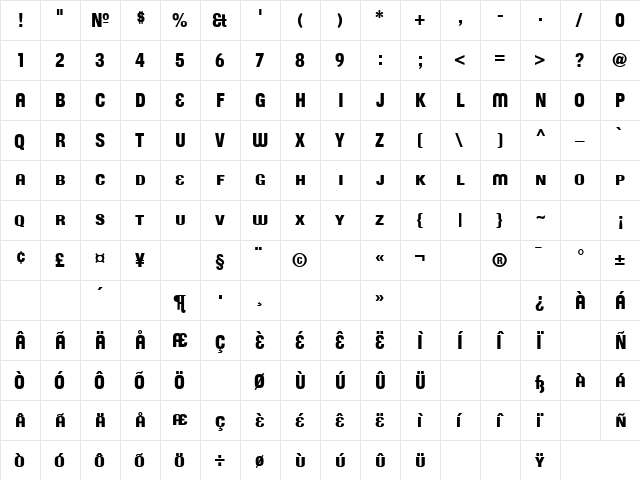
CorpusGothic AltSmallCaps
Design Context for CorpusGothic Typeface
CorpusGothic takes a clean, functional approach — its unadorned letterforms prioritise legibility and work reliably across screen and print environments.
Font Pairing: Works well alongside a characterful serif or display font that can carry the expressive load while CorpusGothic handles the functional copy.
Pro Tip: Pair CorpusGothic with a display or serif font for headlines — its neutral character makes it an excellent supporting player in complex typographic systems.